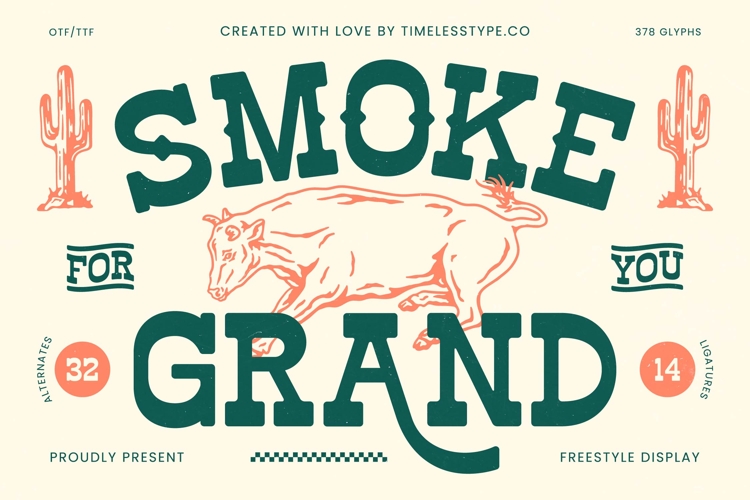
Smoke Grand - Freestyle Display Font
Unleash the spirit of the Wild West with unparalleled typographic charisma. Font Smoke Grand - Freestyle Display Font Western is a meticulously designed typeface, encapsulating authentic Western charm with a modern, impactful edge. Its robust, distinctive letterforms and subtle textural nuances evoke heritage and adventure, making it ideal for projects demanding a strong, memorable visual presence and unique personality.
Crafted for exceptional creative freedom and compelling visual storytelling. Font Smoke Grand - Freestyle Display Font Western boasts 32 alternates and 14 ligatures, offering designers unparalleled flexibility. These additions enable expressive typography and customized layouts, ensuring your message is felt. Its bold structure and stylistic alternatives guarantee your branding achieves a distinctive character and narrative.